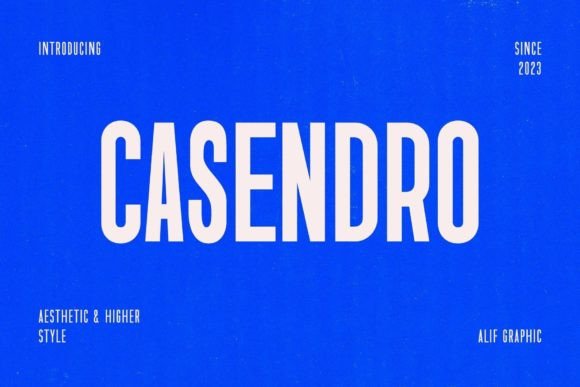
Introducing Casendro Font: The Ultimate Display Font for Bold and Modern Designs
In the world of typography, a good font can make all the difference in creating a lasting impression. For designers and crafters looking for a font that exudes confidence and sophistication, look no further than Casendro Font. This condensed all-caps display font is designed to pack a punch with its sleek and modern design, making it perfect for headlines, banners, and any design where impact is key.
The Perfect Balance of Boldness and Efficiency
What sets Casendro Font apart is its perfect balance between boldness and space-saving efficiency. In today’s fast-paced digital landscape, grabbing the attention of your audience is crucial. Casendro Font achieves this with its clean lines and sharp edges, creating a sophisticated aesthetic that is sure to elevate your typography. Whether you’re working on a branding project, a website design, or a marketing campaign, Casendro Font is the ideal choice for making a bold statement.
Key Features of Casendro Font
- Condensed and All-Caps: Casendro Font is specifically designed to make a statement with its condensed and all-caps style. This makes it perfect for headlines, titles, and any design element where you want to draw attention.
- Sleek and Modern Design: The font boasts a sleek and modern design that is sure to give your projects a contemporary look. Its clean lines and sharp edges create a sophisticated aesthetic that will set your designs apart.
- Versatile: Despite its bold and modern look, Casendro Font is surprisingly versatile. It can be used for a wide range of projects, from branding and advertising to web design and crafting.
- Space-Saving Efficiency: One of the standout features of Casendro Font is its space-saving efficiency. Its condensed design allows you to make a big impact without taking up too much space.
Why Choose Casendro Font?
For designers and crafters looking for a font that can help them create bold and modern designs, Casendro Font is an excellent choice. Here are just a few reasons why:
- Make a Lasting Impression: With Casendro Font, you can create designs that are sure to grab attention and leave a lasting impression.
- Easily Customizable: The font is easy to customize, allowing you to experiment with different colors, sizes, and styles to find the perfect look for your project.
- Professional and Sophisticated: Casendro Font’s clean lines and sharp edges give it a professional and sophisticated look that is sure to elevate your designs.
Using Casendro Font in Your Designs
So, how can you use Casendro Font in your designs? Here are a few ideas to get you started:
- Headlines and Titles: Use Casendro Font to create bold and eye-catching headlines and titles that are sure to grab attention.
- Banners and Posters: The font is perfect for creating banners and posters that need to make a big impact.
- Branding and Logo Design: Casendro Font can be used to create bold and modern logos and branding elements that are sure to set your brand apart.
- Web Design: The font can be used to create bold and eye-catching headings and titles on websites, helping to draw attention and guide the user’s eye.
In conclusion, Casendro Font is a versatile and powerful display font that is perfect for designers and crafters looking to create bold and modern designs. Its condensed and all-caps style, sleek and modern design, and space-saving efficiency make it an excellent choice for a wide range of projects. Whether you’re working on a branding project, a website design, or a marketing campaign, Casendro Font is sure to help you make a lasting impression.